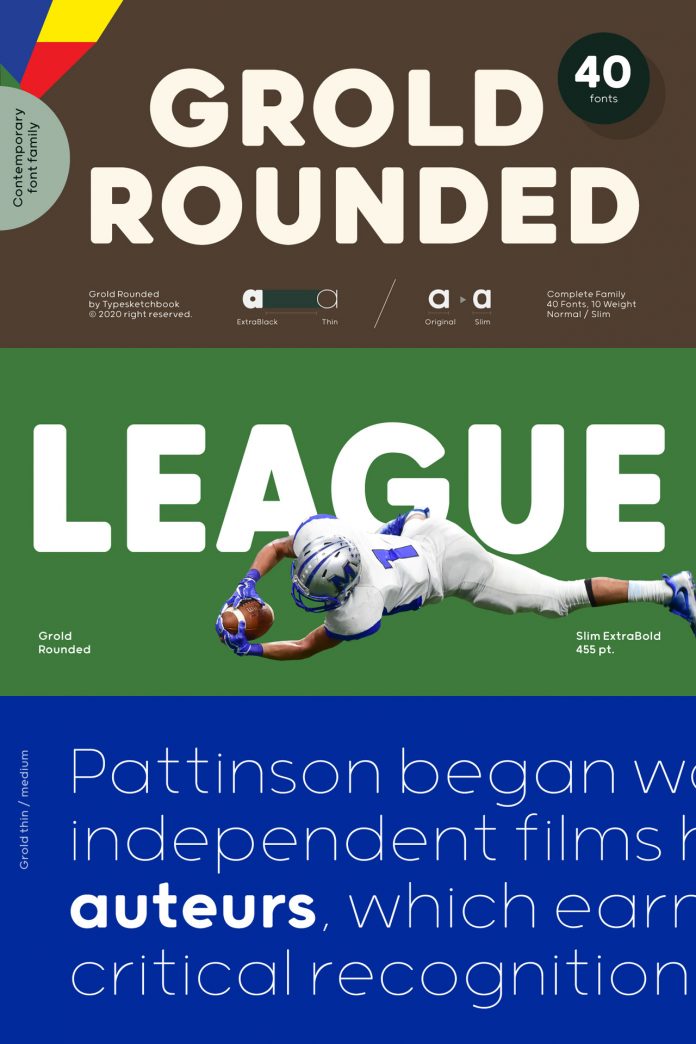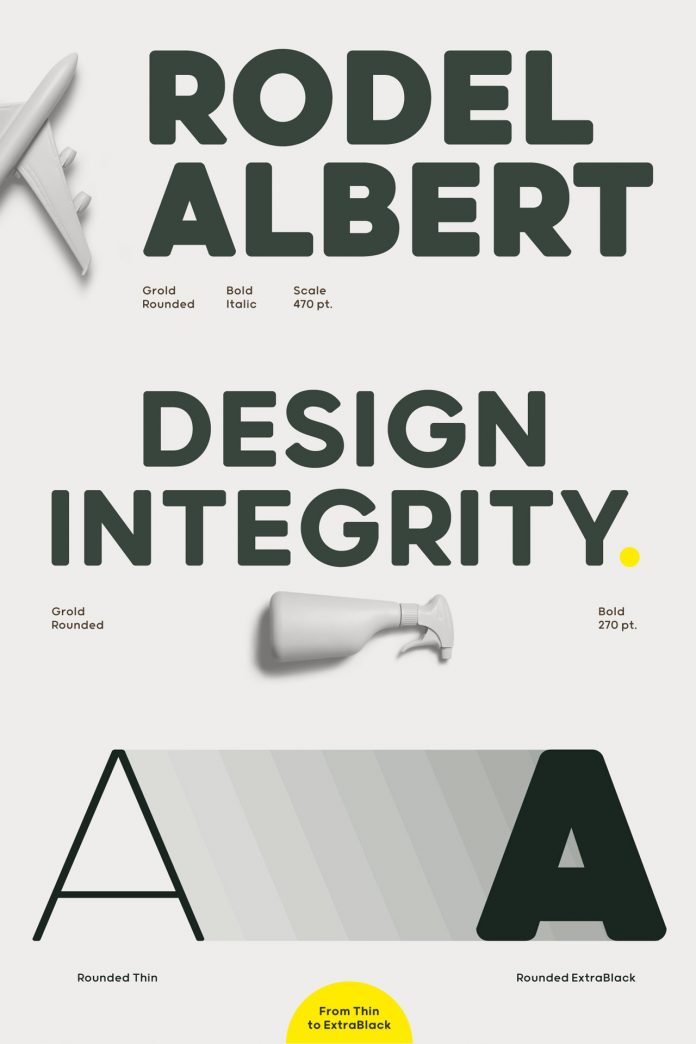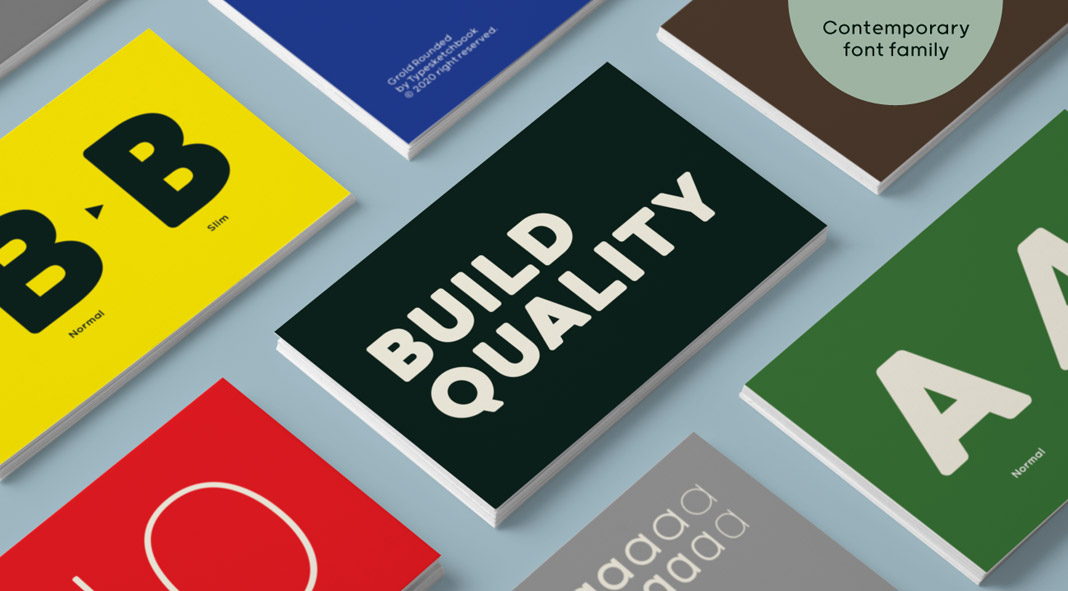
Grold Rounded, an altered modified companion to the original “Grold” typeface.
Published just recently by foundry Typesketchbook, Grold Rounded is a new altered version of the original “Grold” typeface. Thanks to its rounded edges and terminals, Grold Rounded has been designed to be more friendly. Equipped with numerous typographic features, the family offers a prominent, eye-catching, and unique design. It consists of 9 weights with 2 hight options. Grold Rounded is a great choice for any kind of media such as websites, magazines, editorial, publishing or packaging. To learn more about the font family, just click on one of the following links.